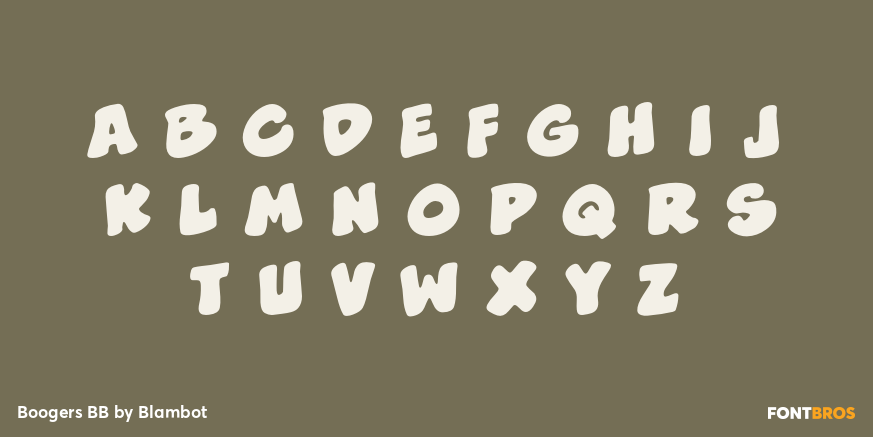
Boogers BB
Font Family by Blambot
Boogers BB is a light-hearted all caps font originally design for comic books.
Perfect for kids parties, scrapbooking and informal notes, this family comes with 4 styles (including Sneeze!) and has a hefty compliment of European characters.
While the upper and lowercase keys are all caps, they are slightly different for a more hand-drawn look!